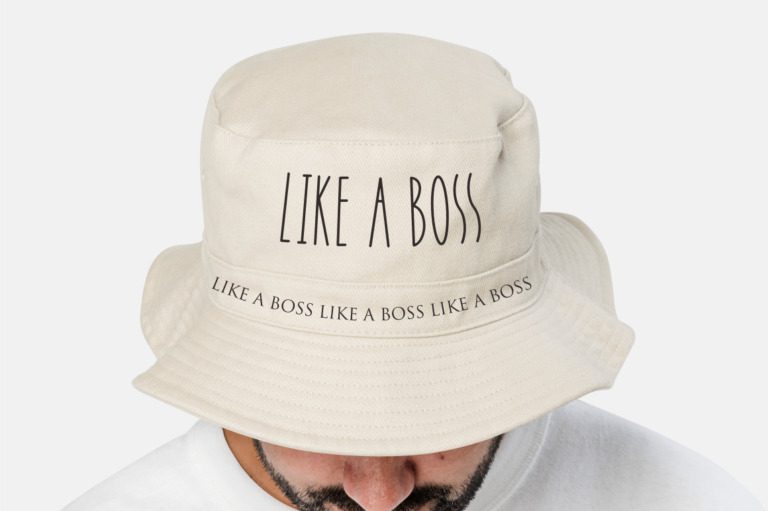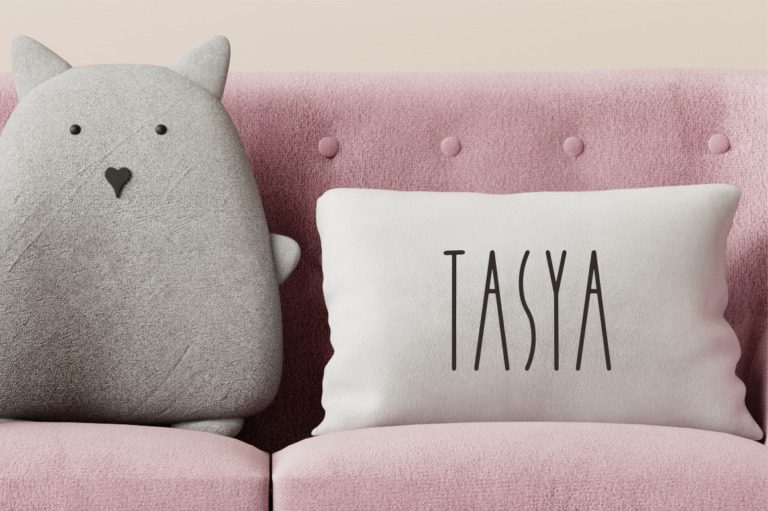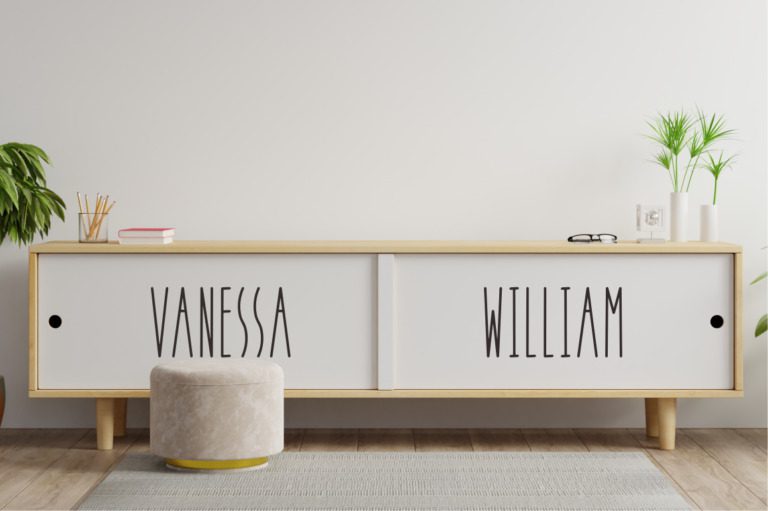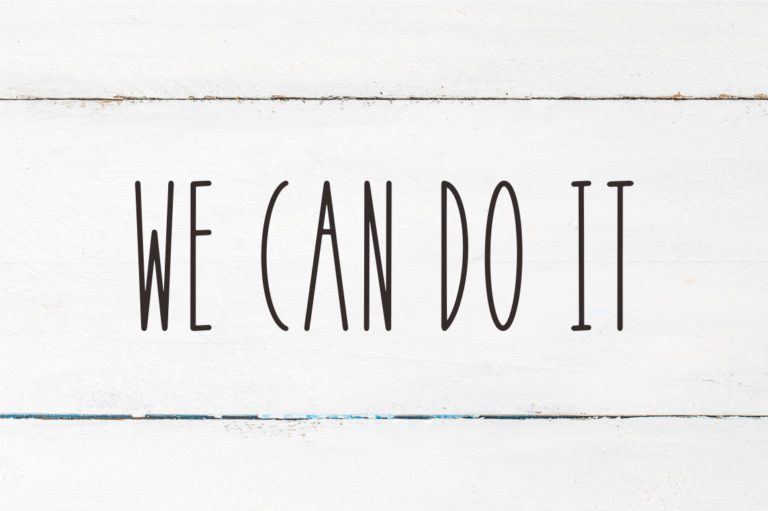
Apple Berry Font
Apple Berry is a sweet and playful script font that adds a touch of whimsy to your designs. Its bouncy curves and cheerful strokes evoke the carefree spirit of childhood. Perfect for invitations, branding, and children’s projects, Apple Berry is sure to brighten up any design. With its friendly and inviting style, it’s ideal for adding a touch of fun and personality to your designs.